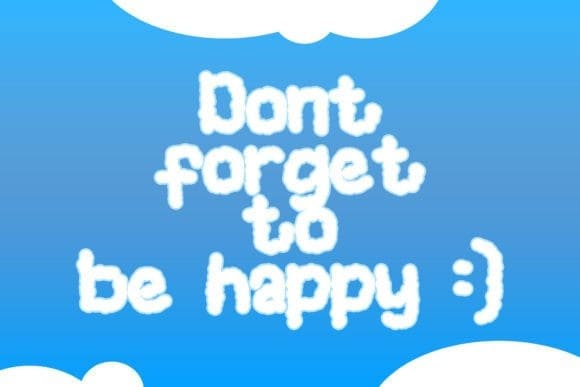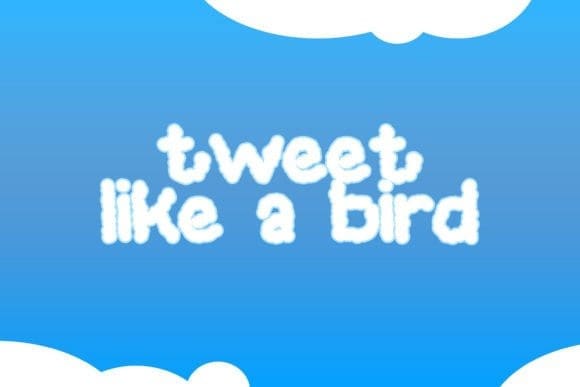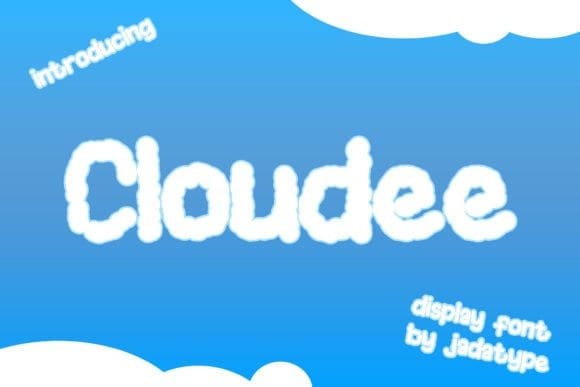
Cloudee Display Font
Cloudee Display Font is a fun and playful display font. Fluffy and cute, this font is suitable for a wide spectrum of applications.